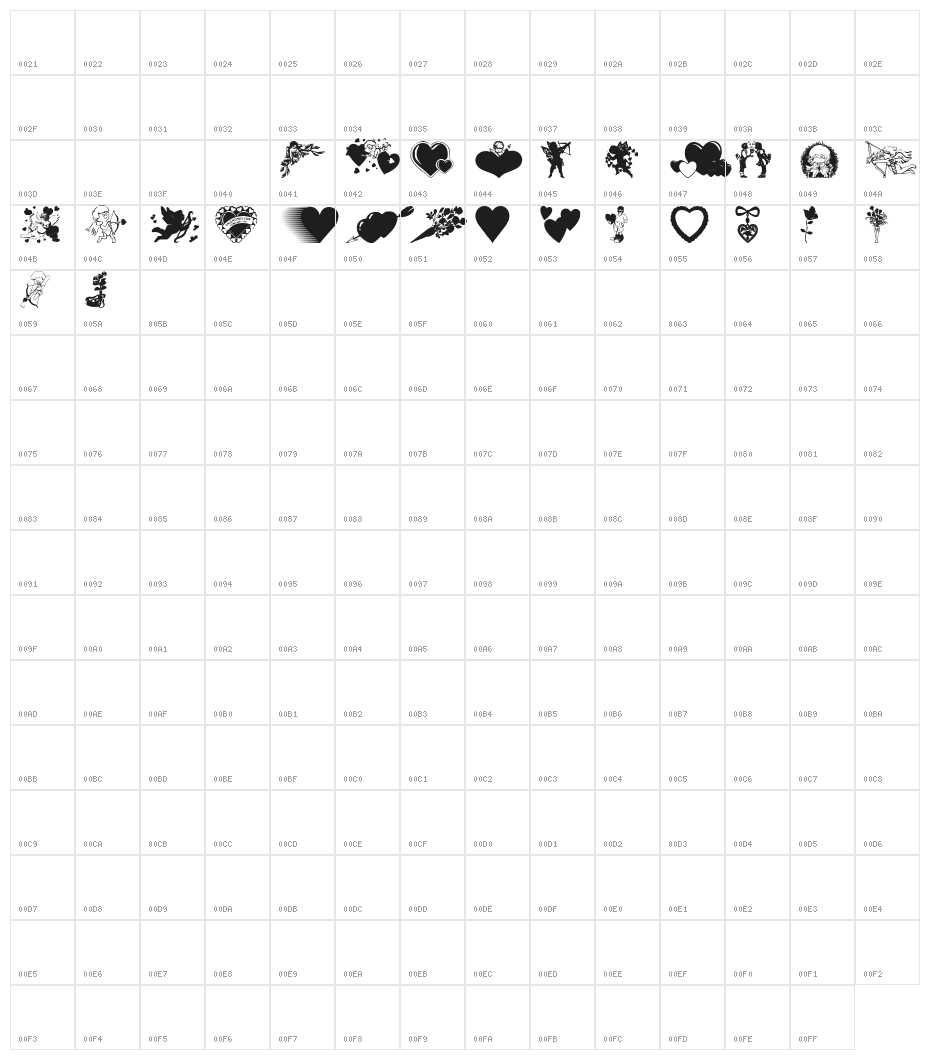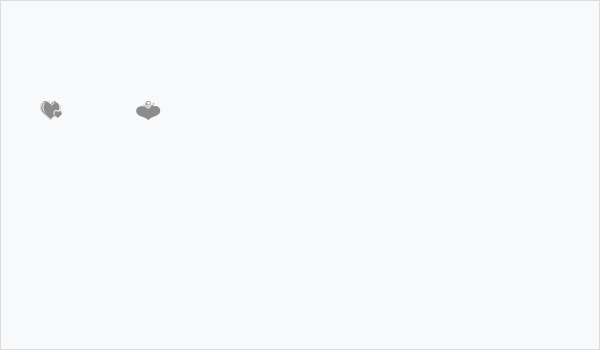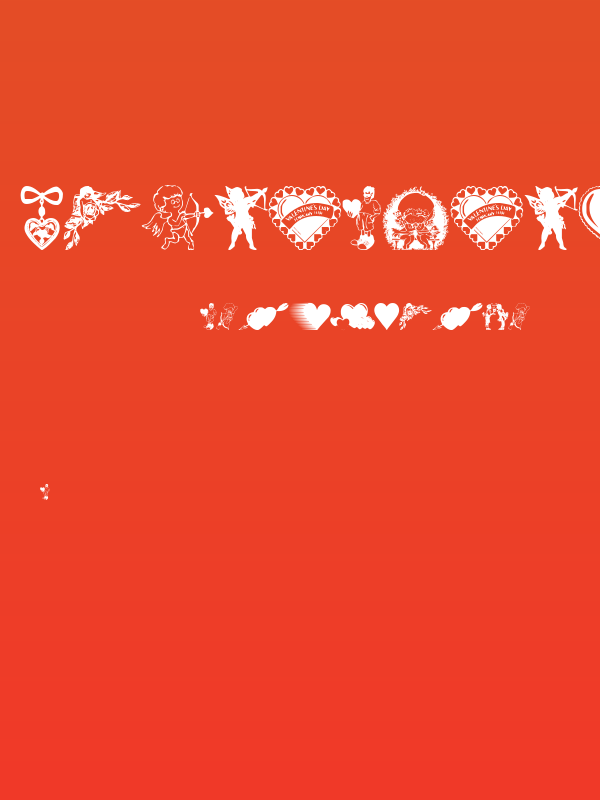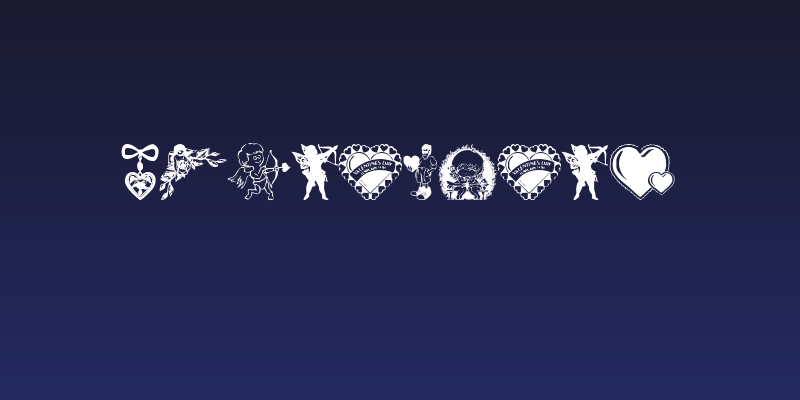
valentinec Font
valentinec Description
A decorative dingbat font featuring various ValentineΓ’β¬β’s Day-themed illustrations such as hearts, cupids, flowers, and romantic motifs, rendered in bold black and white silhouettes and line art.
| Overall Style | Decorative, Playful, Thematic |
| Use Case | Icons, Decorative elements, Themed graphics |
| Proposed Projects | Greeting cards, event invitations, scrapbooking, digital stickers, themed posters. |